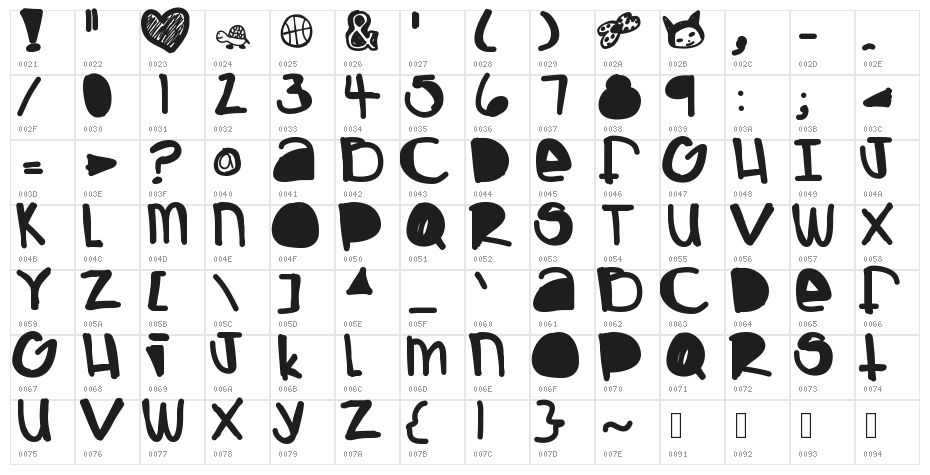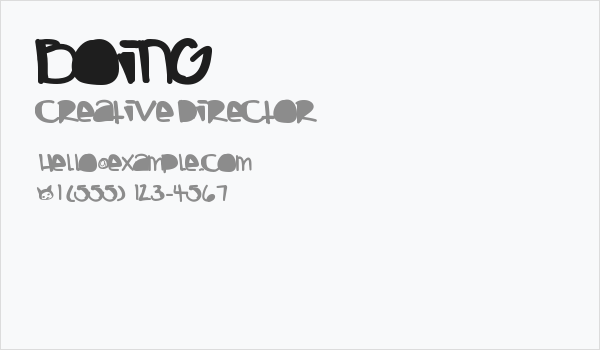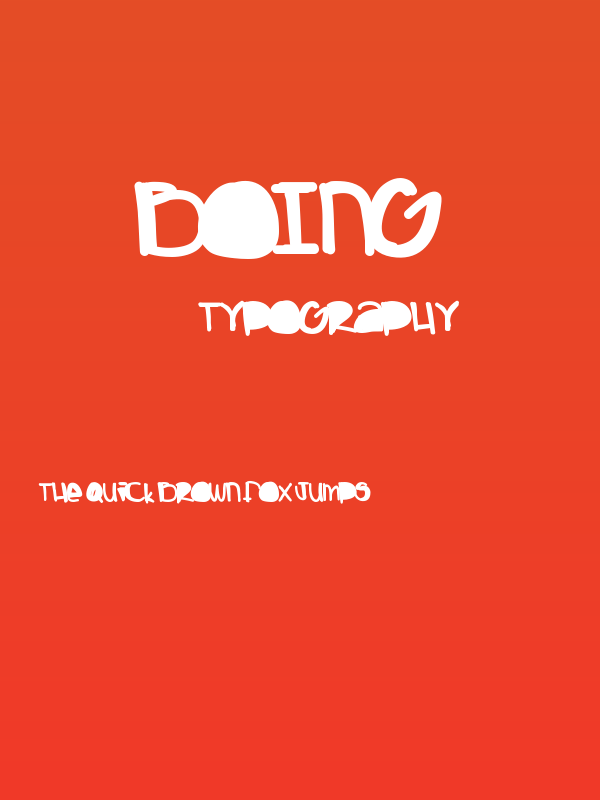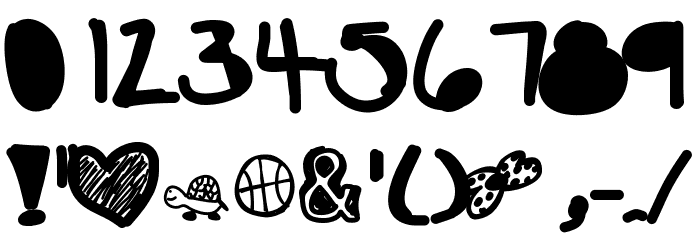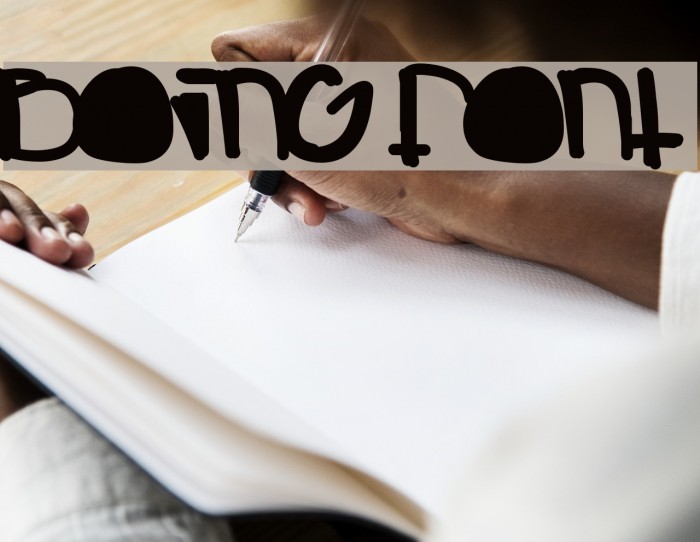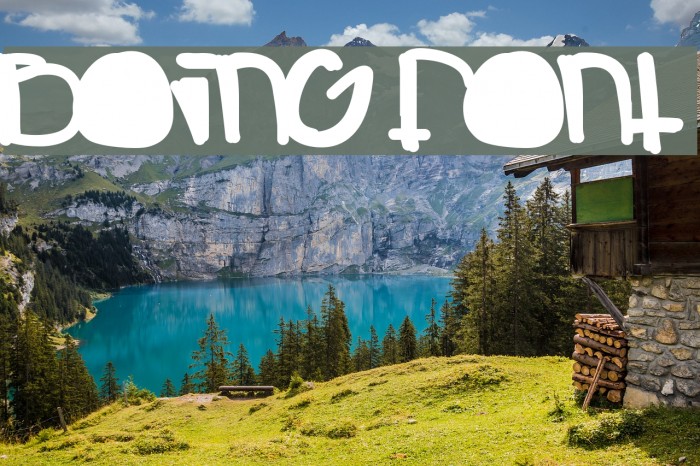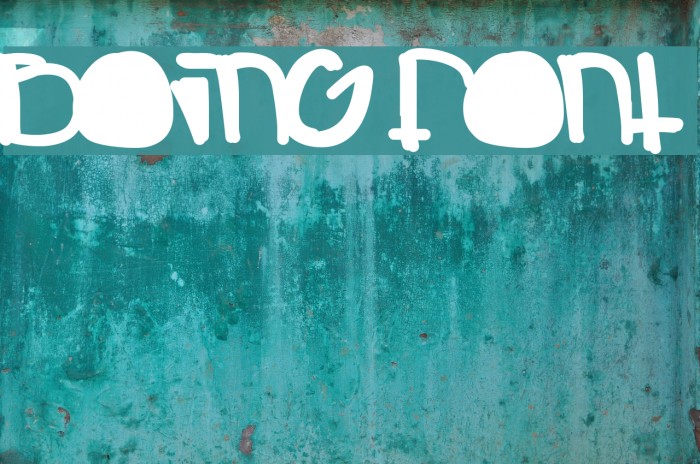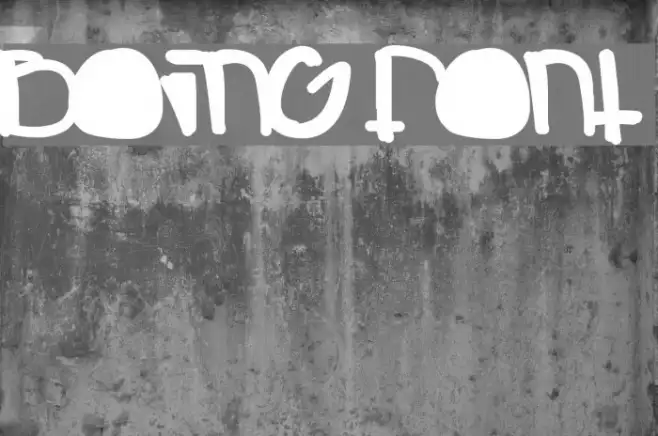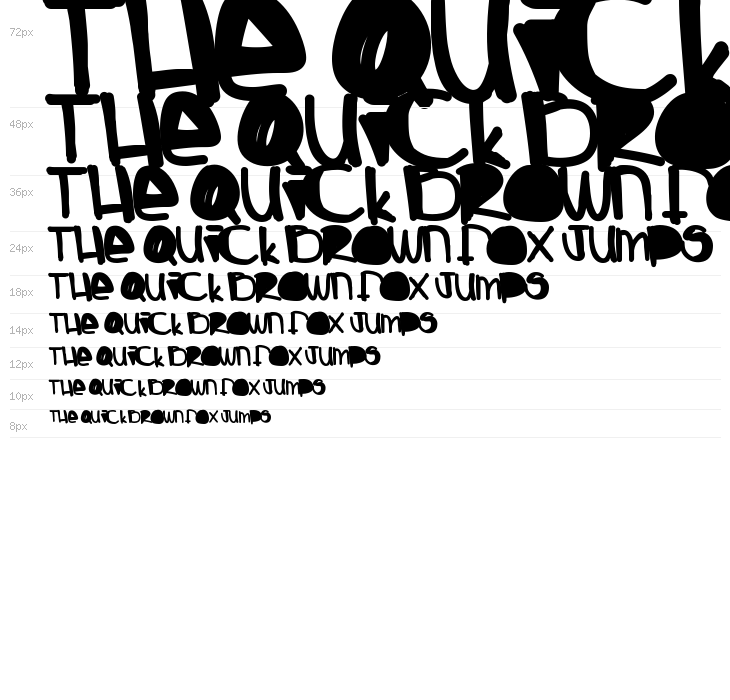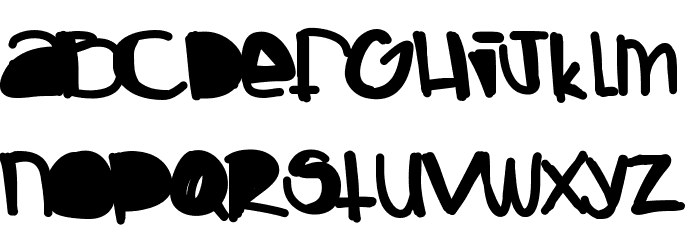
Boing Font
Boing Description
This playful and bold font features a hand-drawn style with thick, rounded strokes that give it a whimsical and energetic appearance. The characters are slightly irregular, adding to the casual and fun aesthetic. The uppercase and lowercase letters maintain a consistent style, with the uppercase being slightly larger and more pronounced. Numbers and special characters follow the same playful design, making them suitable for creative and informal projects. The font's unique style is perfect for adding a touch of personality and flair to any design.